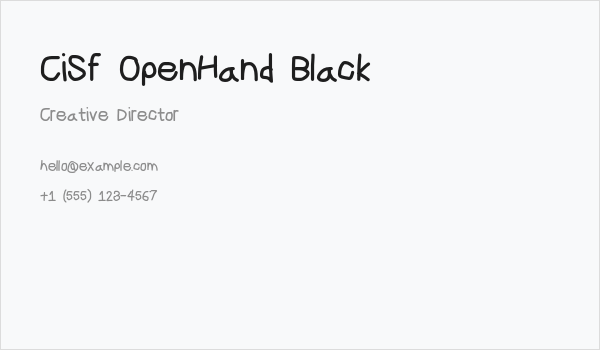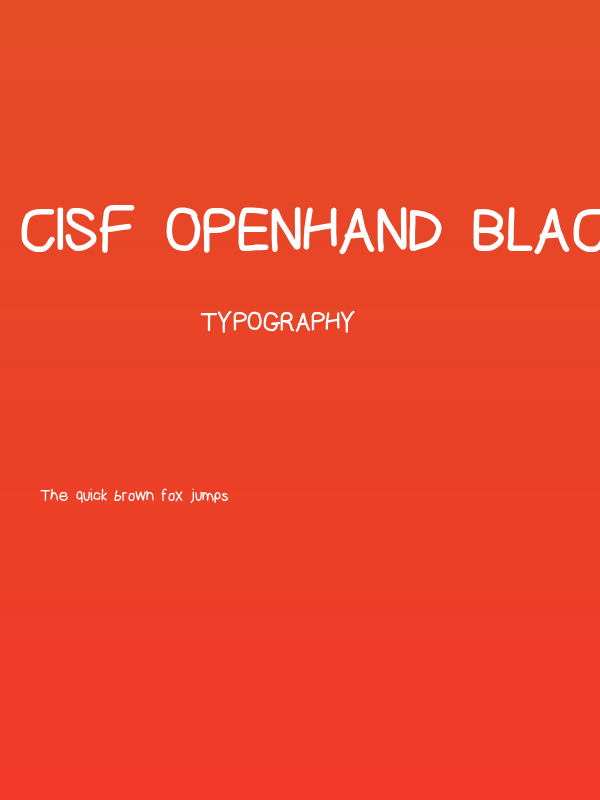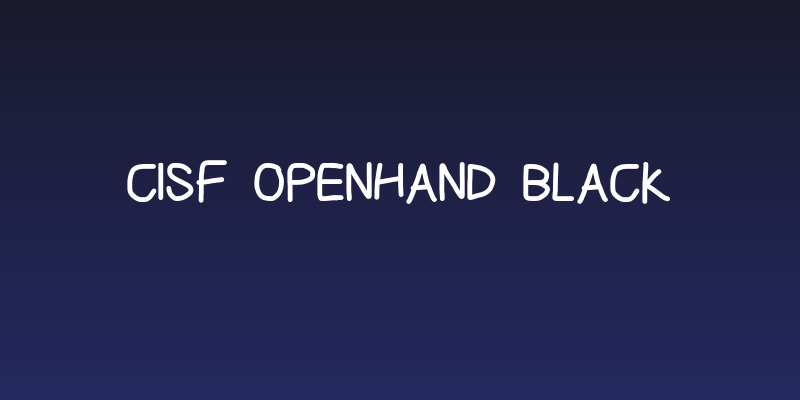
CiSf OpenHand Black Font
CiSf OpenHand Black Description
This font features a playful and casual handwritten style, characterized by its rounded and slightly irregular letterforms. The strokes are consistent in thickness, giving it a uniform appearance despite its informal style. The uppercase and lowercase letters are well-balanced, with a natural flow that mimics real handwriting. Numbers and special characters maintain the same playful aesthetic, making it versatile for various uses. The font's overall appearance is friendly and approachable, ideal for projects that require a personal touch.
| Use Case | Headlines, Informal text, Branding |
| Proposed Projects | Ideal for greeting cards, children's books, casual branding, and social media graphics. |